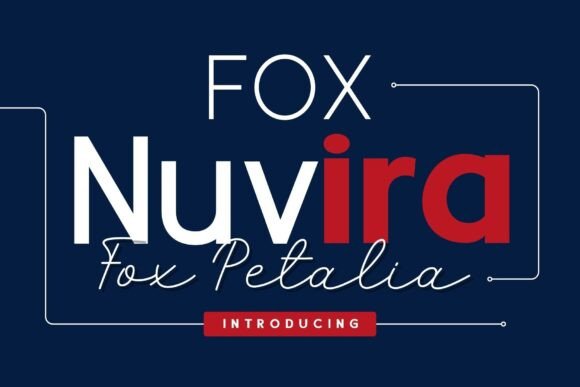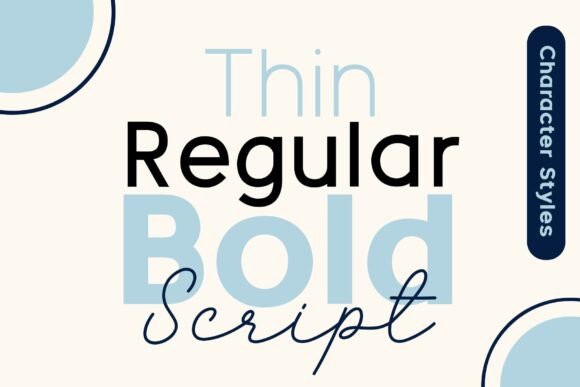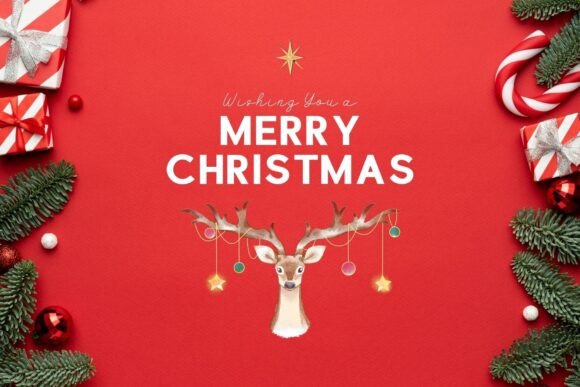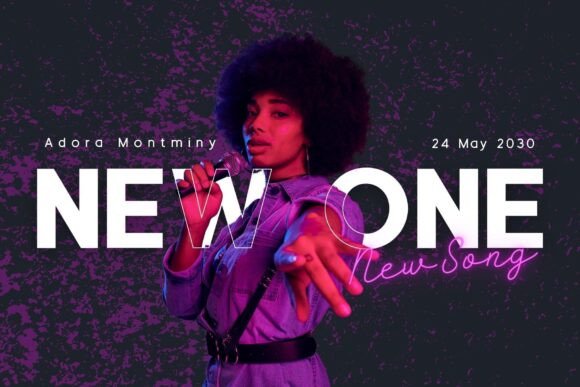
Fox Nuvira & Fox Petalia Font
About the Fox Nuvira & Fox Petalia Font
Add a touch of class to your work with the Fox Nuvira & Fox Petalia Font, a truly exceptional typeface. 🦊 Fox Nuvira & Fox Petalia – Modern Sans Serif & Handwritten Script Font Duo
Fox Nuvira is a clean and modern sans serif font family that comes in 3 styles: Thin, Regular, and Bold. Perfect for branding, logos, magazines, social media, and web design, Fox Nuvira brings a professional and versatile look to any project.
Fox Petalia is a stylish handwritten script font with elegant curves and natural flow. It’s great for wedding invitations, quotes, product packaging, and romantic designs.
This font duo is ideal for modern design projects that need both structure and elegance. Use them together or separately for a timeless, creative feel.
Fox Nuvira & Fox Petalia Font Usage Examples
Fox Nuvira & Fox Petalia Font Example